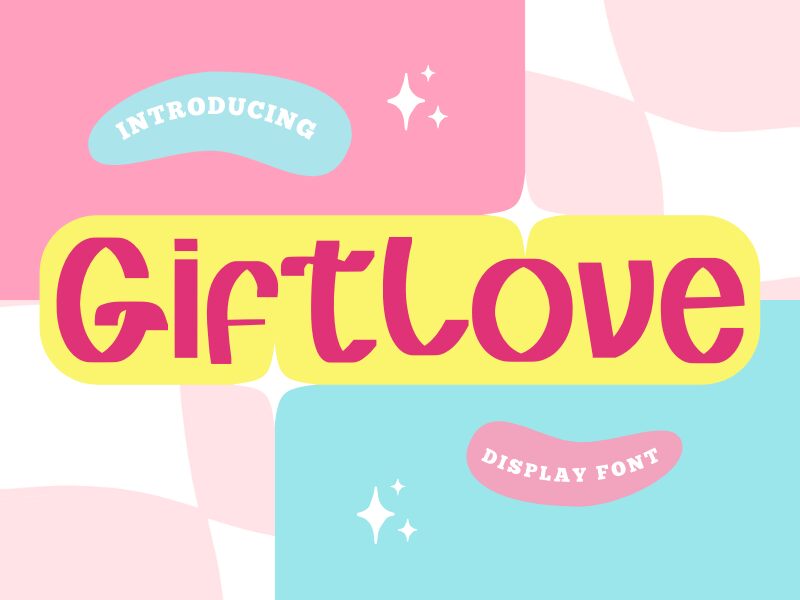
Gift Love, a captivating handwritten font designed by Creaditive Design, exudes a harmonious blend of elegance and charm. Featuring fluid strokes and organic character shapes, this font radiates a heartfelt, personalized aesthetic that evokes a sense of warmth and intimacy. The smooth connections between letters and the delicate flourishes lend a touch of artistry, making Gift Love an alluring choice for projects seeking a genuine, handcrafted feel.
This versatile font can elevate a wide range of design applications, from wedding invitations and greeting cards to product packaging and branding materials. Its expressive and approachable personality makes it an ideal selection for projects aiming to convey a genuine, heartfelt message or a personal, handcrafted touch. Whether designing for special occasions, crafting impactful typography, or seeking to infuse a design with a genuine, human-centric essence, Gift Love by Creaditive Design stands out as a captivating and compelling typographic choice.